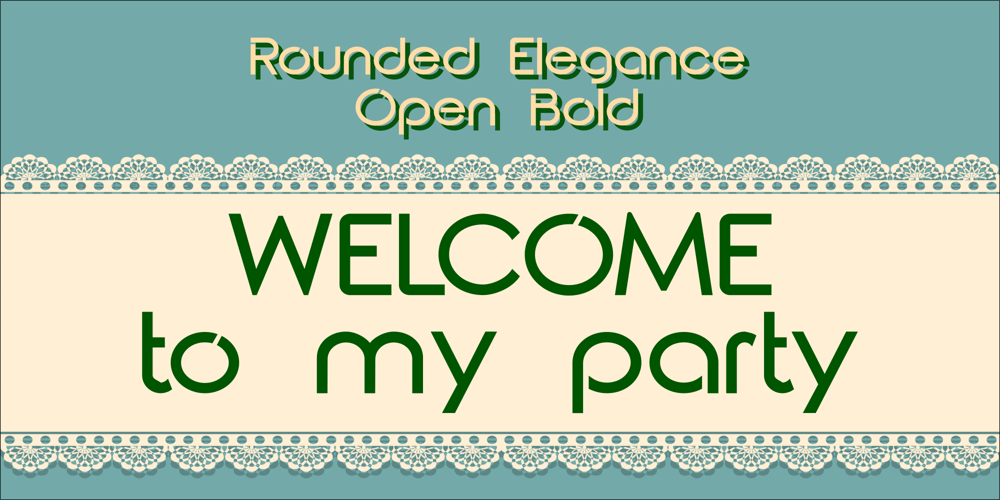
Rounded Elegance Font Family was designed by Douglas Charles Cunha and published by Douglas Charles. Rounded Elegance contains 12 styles and family package options. In the “Rounded Elegance” font family you will find modern, clean and elegant fonts.The family is thought and designed to provide smooth and modern logo creation as well as writing subtitles and brand slogans for end customers.The “Rounded Elegance” family is a unique sans serif type, with smooth, rounded contours. The package contains the new version (2.0) of the well-known Rounded Elegance font.